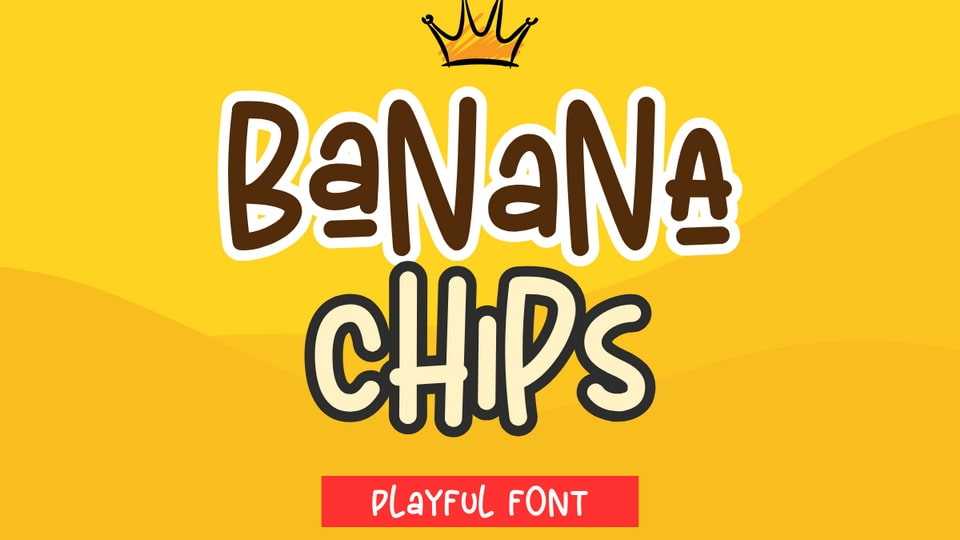
Download Banana Chips font, a cute and cheerful handwritten typeface that radiates warmth and joy in every stroke. It features smooth, rounded letterforms with a playful vibe.
Designer: Silverdav Studio